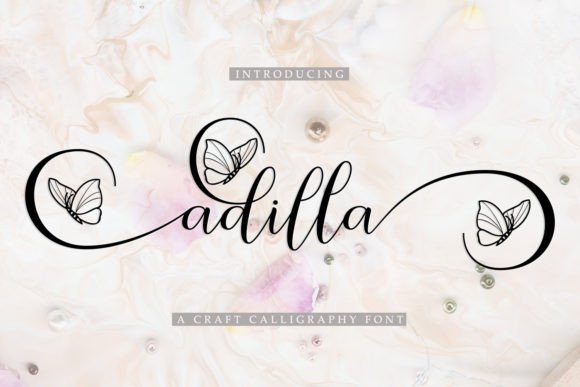
Looking for the best font for your wedding monogram? Look no further than Adilla Font, created by Bexx Type. This elegant and graceful script font is one of the most common forms of calligraphy, characterized by its flowing, connected letters and exquisite lines.
Whether you're creating formal invitations, wedding cards, certificates, or diplomas, Adilla Font is the perfect choice to add an extra touch of sophistication to your designs. And with its PUA encoding, accessing all glyphs and swashes is effortless, making your design process even smoother.
With Adilla Font, your text will exude elegance and charm, captivating your audience and creating a lasting impression. The smooth and fluid nature of the script will evoke a sense of timeless beauty, adding a touch of class to any design.
Don't settle for boring fonts when Adilla Font is available to elevate your designs to the next level. Impress your clients and guests with this stunning script font that is perfect for any occasion.